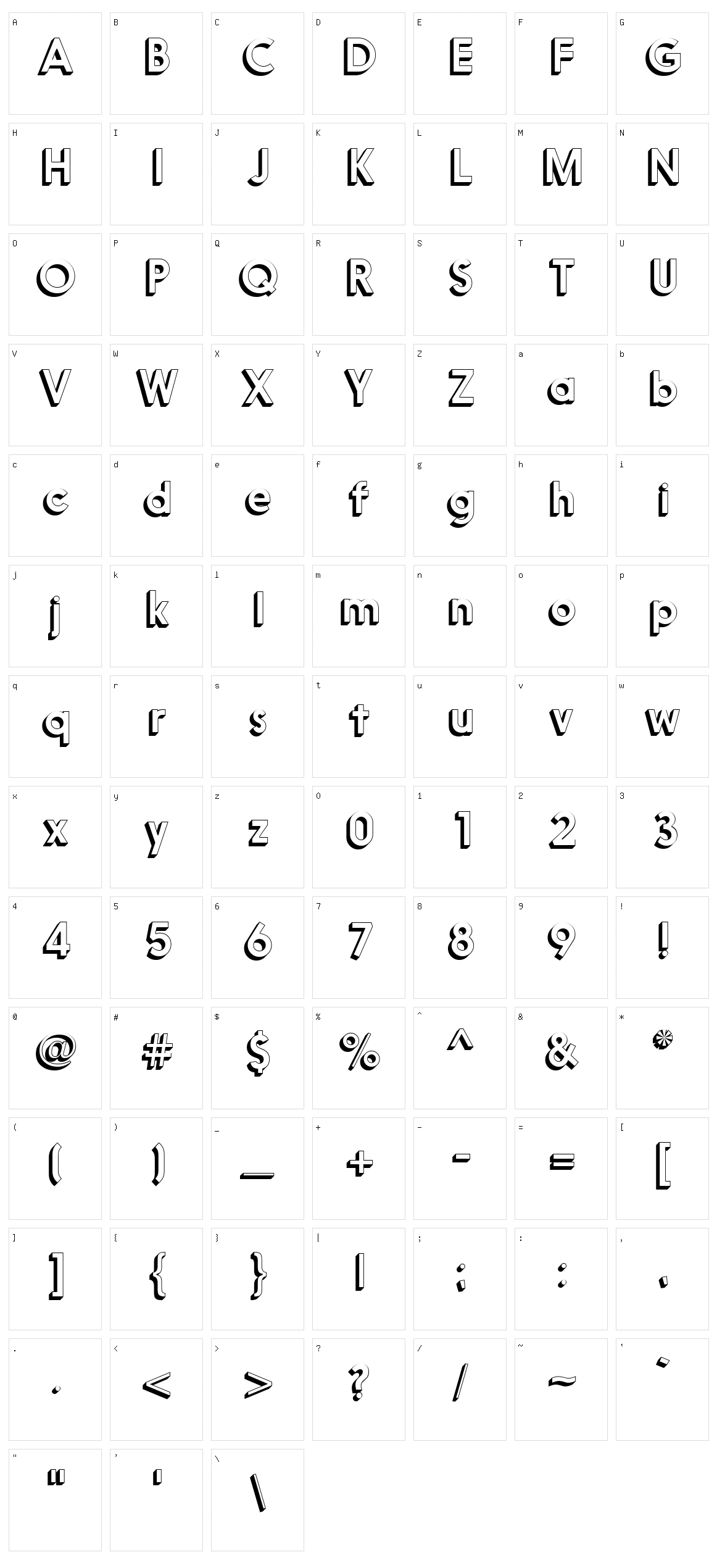
The free font Nanami 3D is carefully designed by HypeForType.com, showcasing a thoughtful balance of creativity and usability and falls under the Sans serif font style. When you download the ZIP file, it contains only 3263.79 KB of font files, making it lightweight and quick to download. Please review the license details below to understand permitted usage and distribution rights. If license information is not available, we recommend using this font for personal projects only or contacting the author directly for commercial usage permissions.